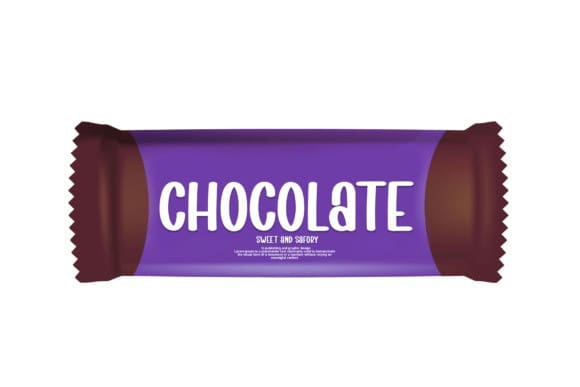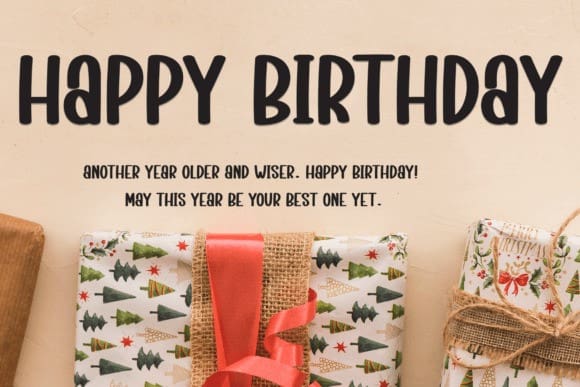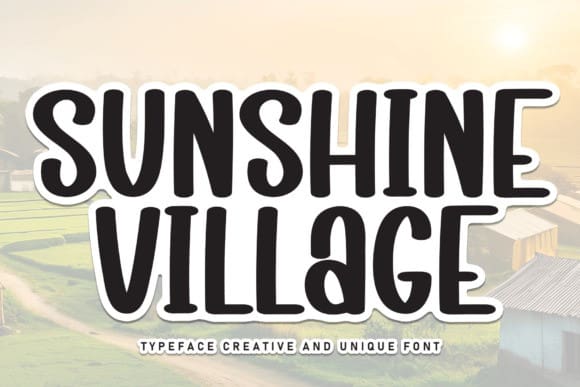
Sunshine Village Font
Sunshine Village Font is an exquisite handwritten font, masterfully designed to become a true favorite. It maintains its classy calligraphic influences while feeling contemporary and fresh. Fall in love with it and bring your projects to the highest levels!